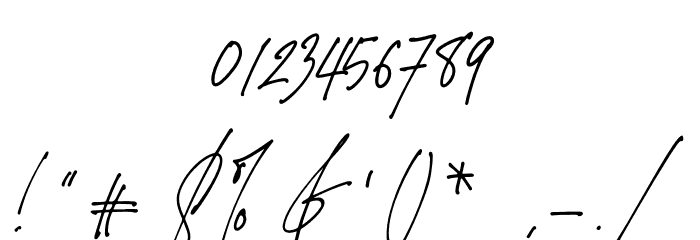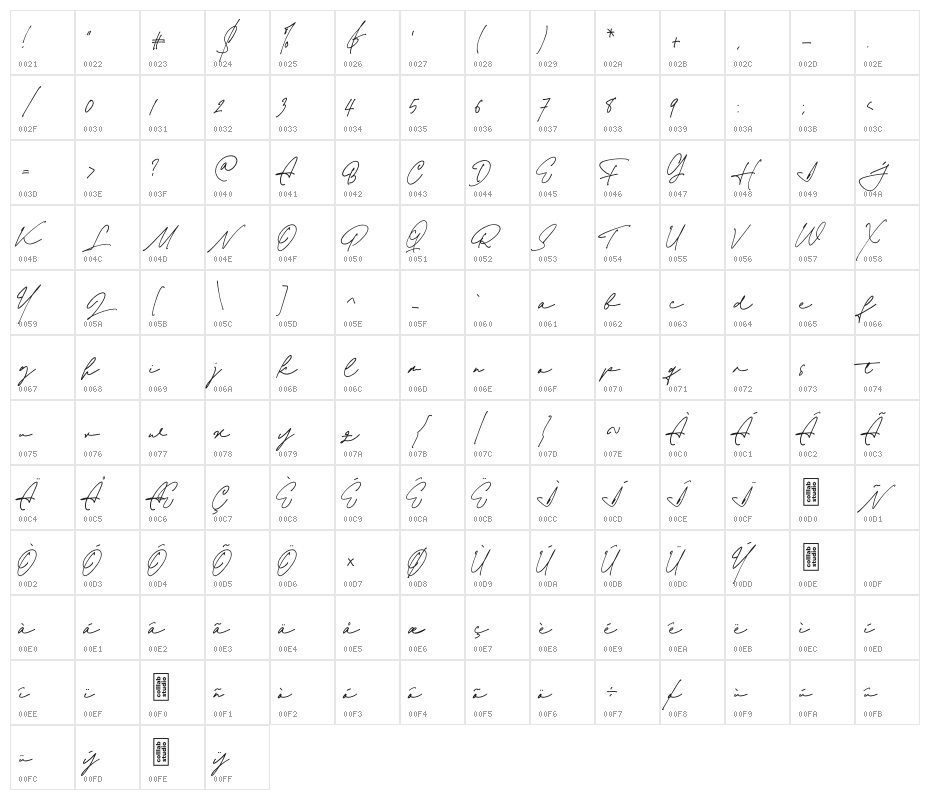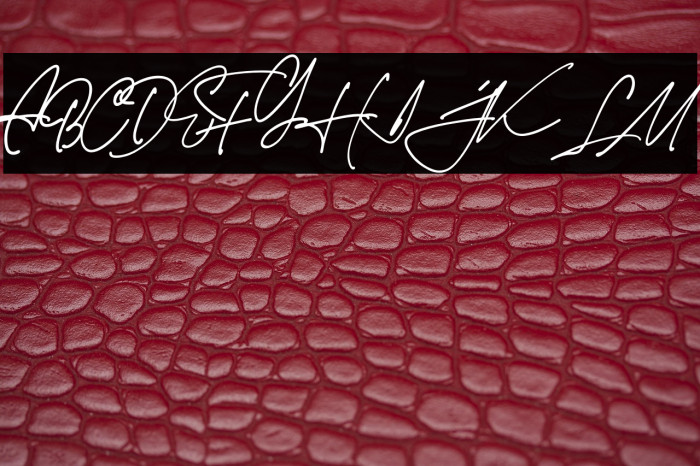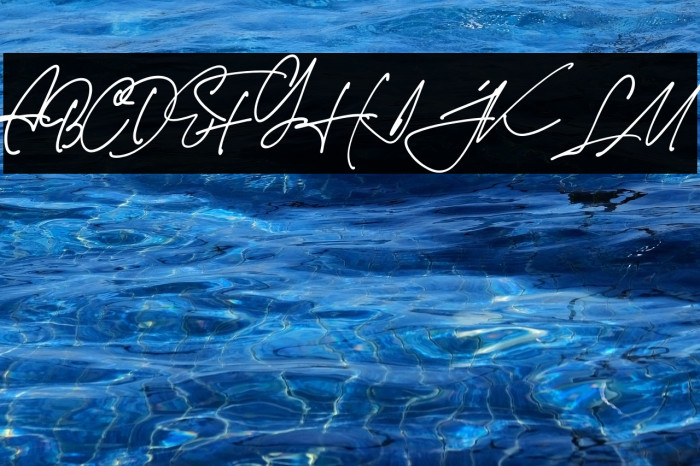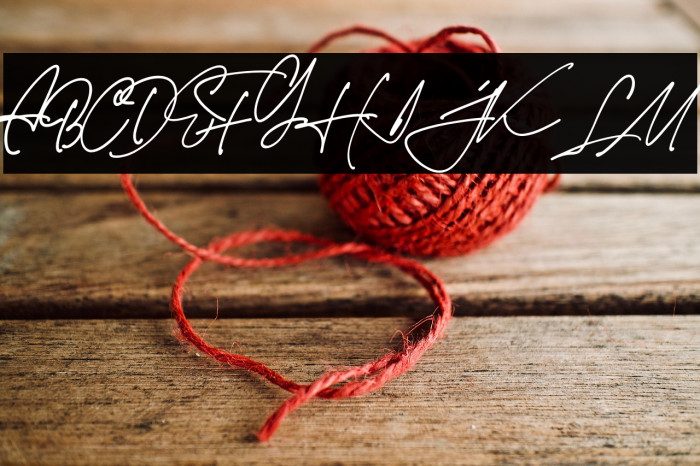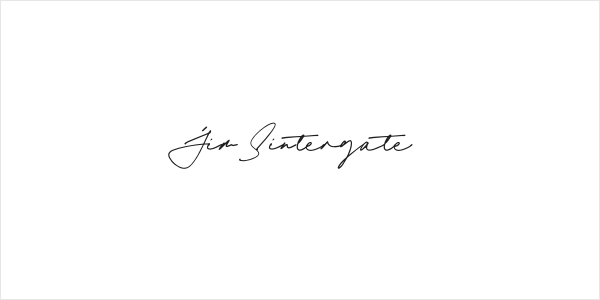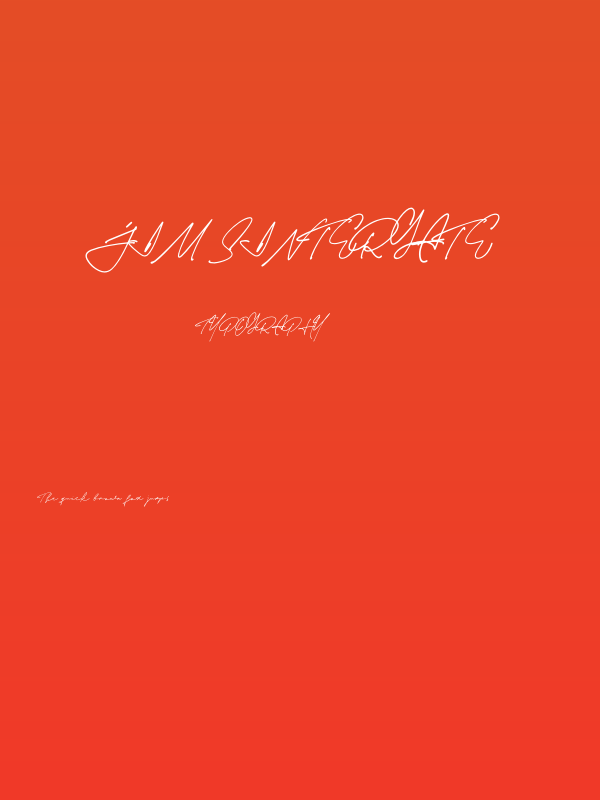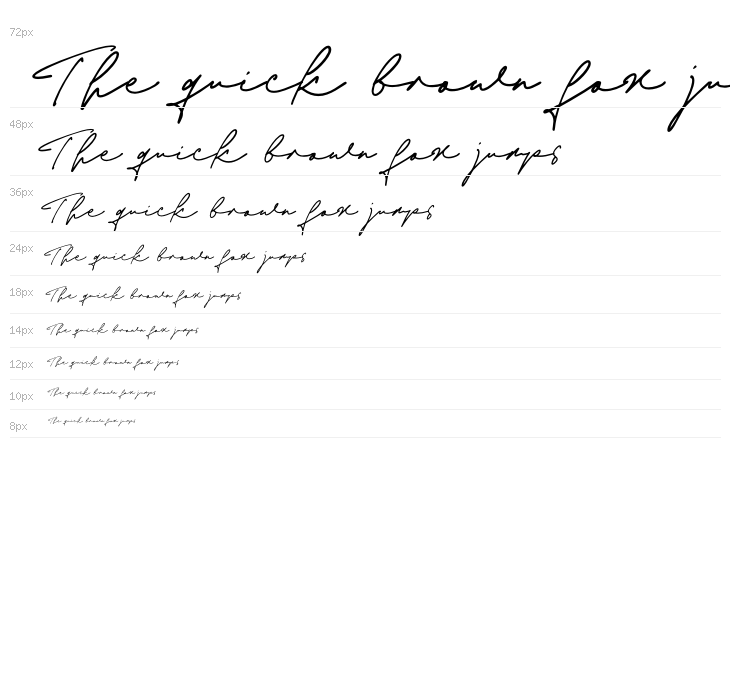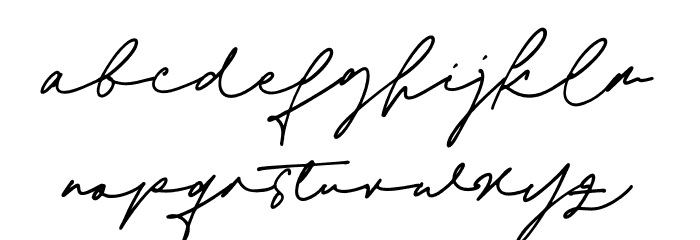
Jim Sintergate Font
Jim Sintergate Description
This font exudes a dynamic and expressive handwritten style, characterized by fluid, interconnected strokes that mimic natural handwriting. The uppercase letters are bold and sweeping, with a sense of motion and flair, while the lowercase letters maintain a consistent flow, enhancing readability. The numerals are distinct yet harmonize well with the overall script style. Special characters are crafted with the same attention to detail, ensuring they blend seamlessly with the alphabetic characters. The font's organic and personal touch makes it ideal for projects that require a human element or a personal touch.